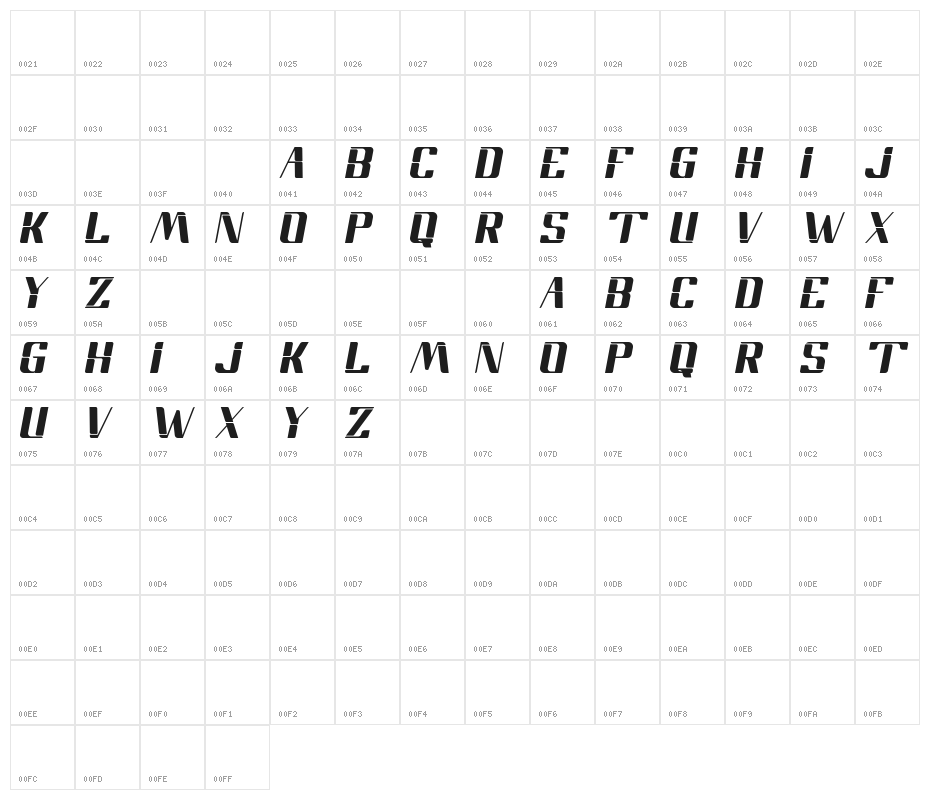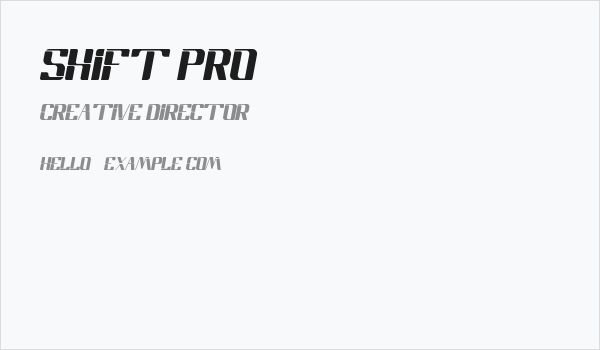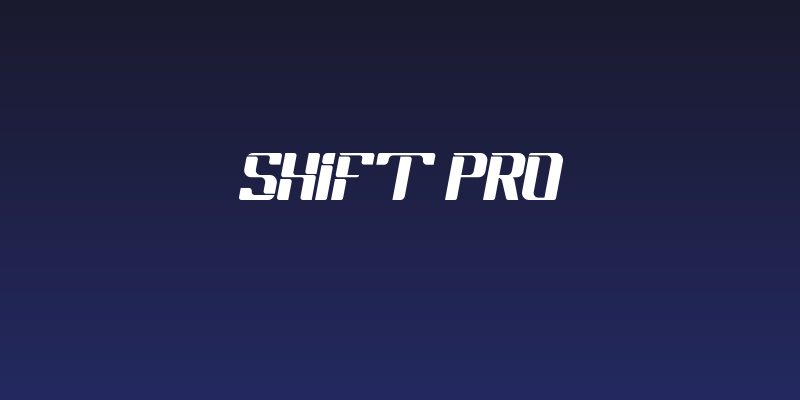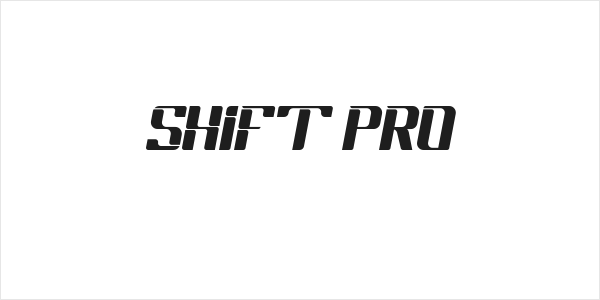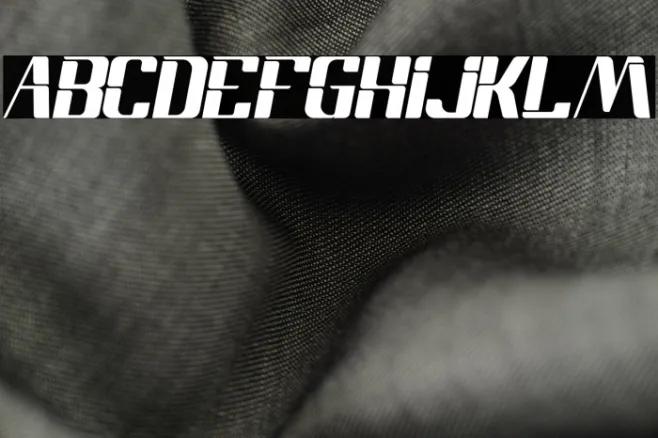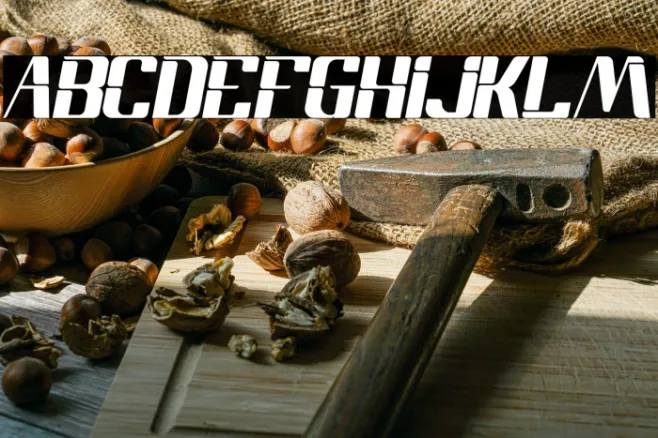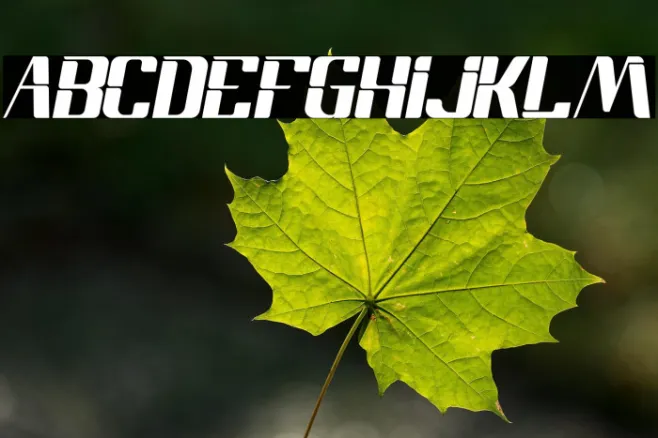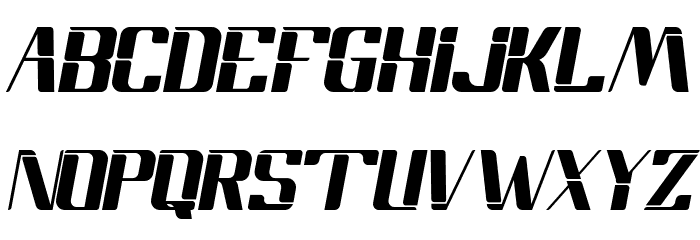
shift Pro Font
shift Pro Description
This font features a bold and dynamic design with a futuristic flair. The characters are constructed with sharp angles and a slanted orientation, giving a sense of motion and speed. The strokes are thick and consistent, providing a strong visual impact. The uppercase letters are particularly striking, with a unique geometric style that stands out. The lowercase letters maintain the same angular theme, ensuring consistency across the typeface. The numerals are equally bold, matching the overall aesthetic. Special characters are included, designed to complement the primary letterforms. This font is ideal for projects that require a modern and energetic look.
| Proposed Projects | Ideal for sports branding, tech-related designs, futuristic posters, and dynamic logos. |